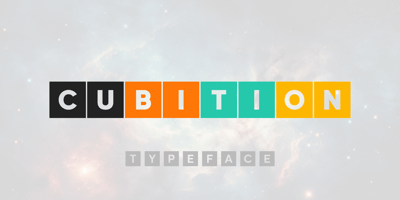
Cubition Font Family was designed by Nikolay Savchuk and published by NicolassFonts. Cubition contains 6 styles and family package options. Cubition font family was designed by Nikolay Savchuk. Cubition was created on base Everest Pro sans-serif typeface. It is brilliantly suited for graphic design and display use and perfect for brand identity, magazines, newspapers, books, websites, and advertising.